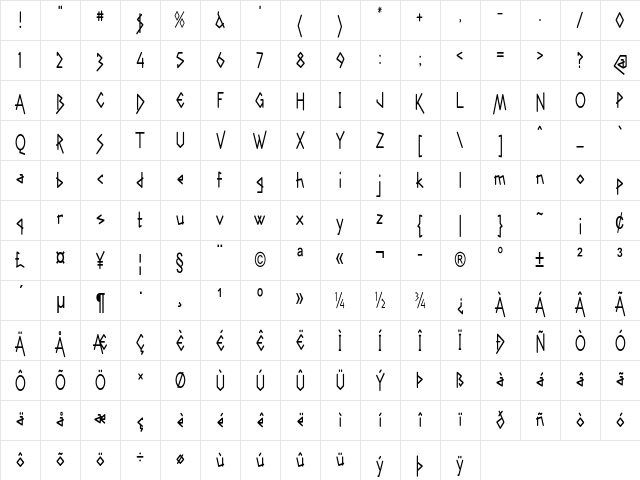
Complete Nightcastle Condensed Regular glyph index. Displaying only characters natively supported by Nightcastle Condensed Regular font.
Nightcastle is a composed and adaptable typeface that performs quietly and consistently across a wide range of design contexts. Its narrow stance lets it pack a punch even in space-constrained designs.